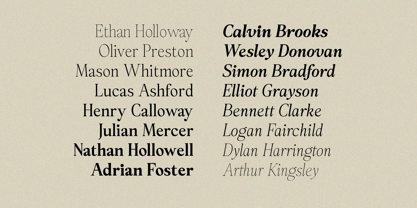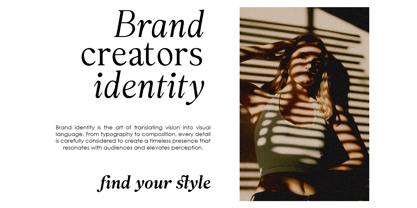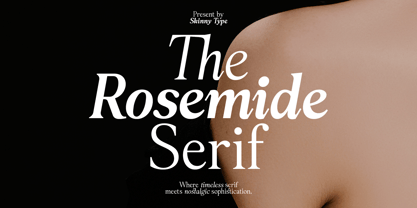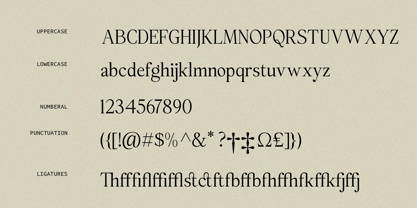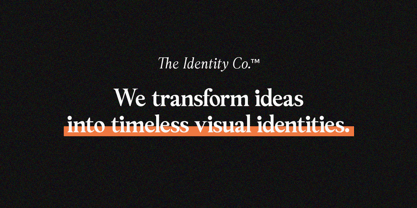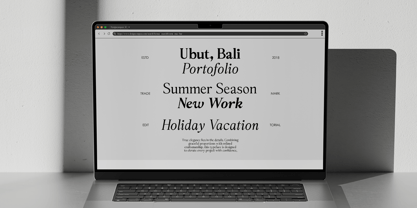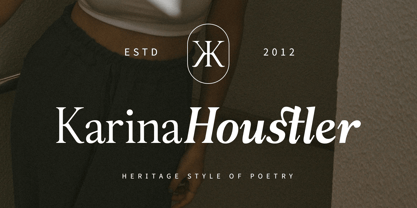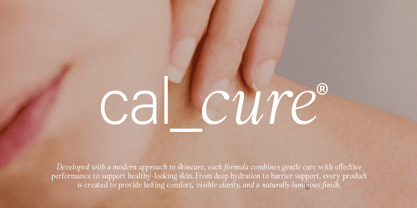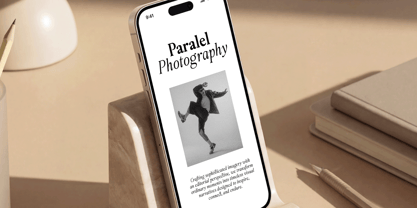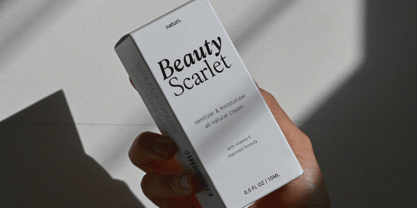
The Rosemide
Rosenmide Serif is a contemporary high-contrast serif typeface that synthesizes classical typographic principles with a refined modern aesthetic. Characterized by its meticulously proportioned letterforms, elegant stroke modulation, and delicately sculpted serifs, it conveys a visual language of sophistication, poise, and enduring elegance. The subtle interplay between sharp structural details and graceful curves establishes a harmonious balance that enhances both legibility and expressive character.
Conceived for premium editorial applications and elevated brand communication, Rosenmide Serif performs exceptionally across luxury fashion, beauty and cosmetic branding, publishing, packaging, hospitality, and high-end visual identities. Its versatile design allows it to function effectively in both commanding display compositions and refined typographic hierarchies, making it a distinguished choice for projects that demand timeless appeal with contemporary relevance.
OpenType Features
• Uppercase & Lowercase
• Numerals & Punctuation
• Standard Ligatures
• Discretionary Ligatures
• Multilingual Support
• PUA Encoded